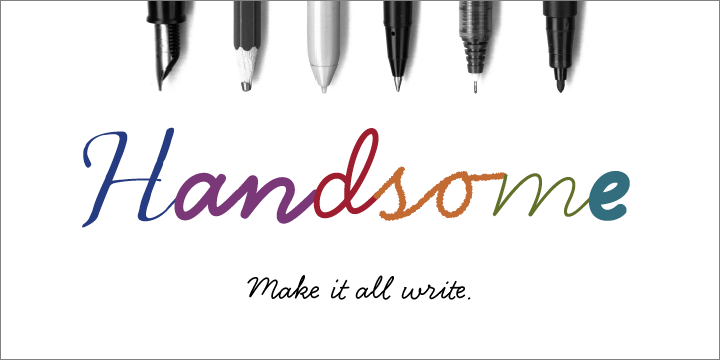
Handsome Pro was one of the first script typefaces to utilize the OpenType format to simulate the natural quality of writing, by automatically substituting alternate contextual glyphs. This feature is on by default in page layout applications such as InDesign and Quark XPress, and also the MyFonts showing below.
The effect follows the conventional “joining rules” of calligraphy, which are a formalization of the way in which letter forms are modified in cursive handwriting for the sake of speed and efficiency -- and also perhaps to make life more interesting.